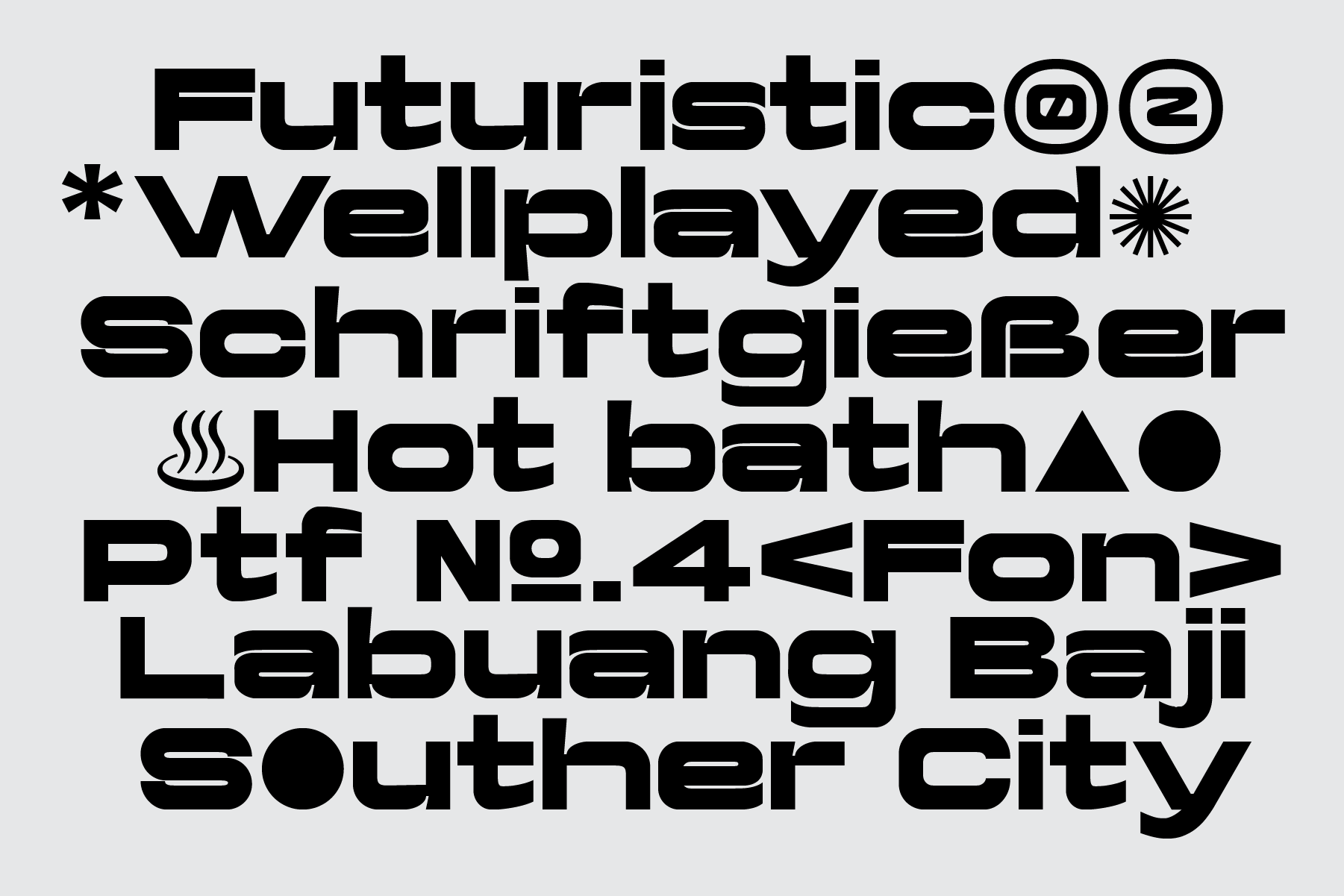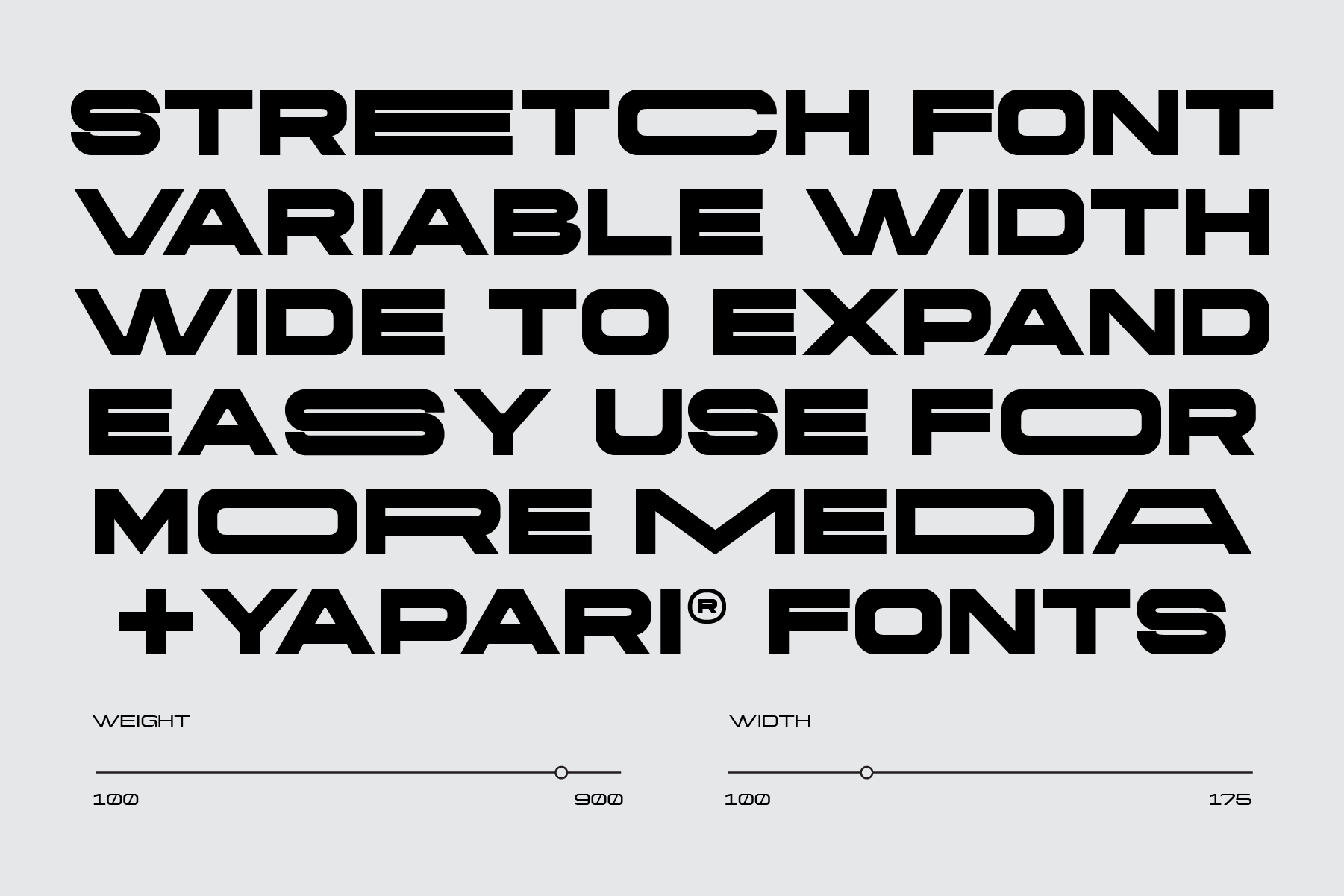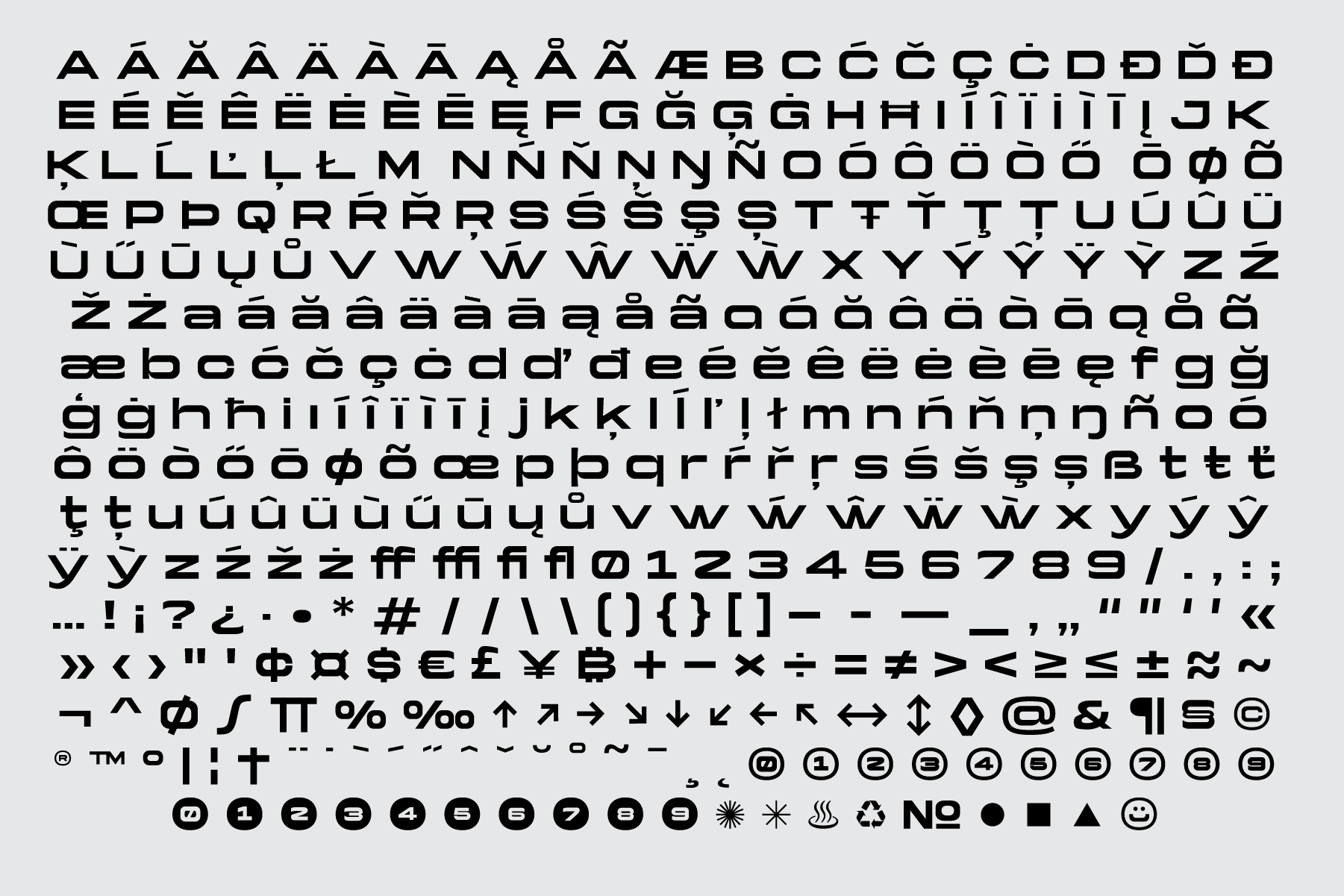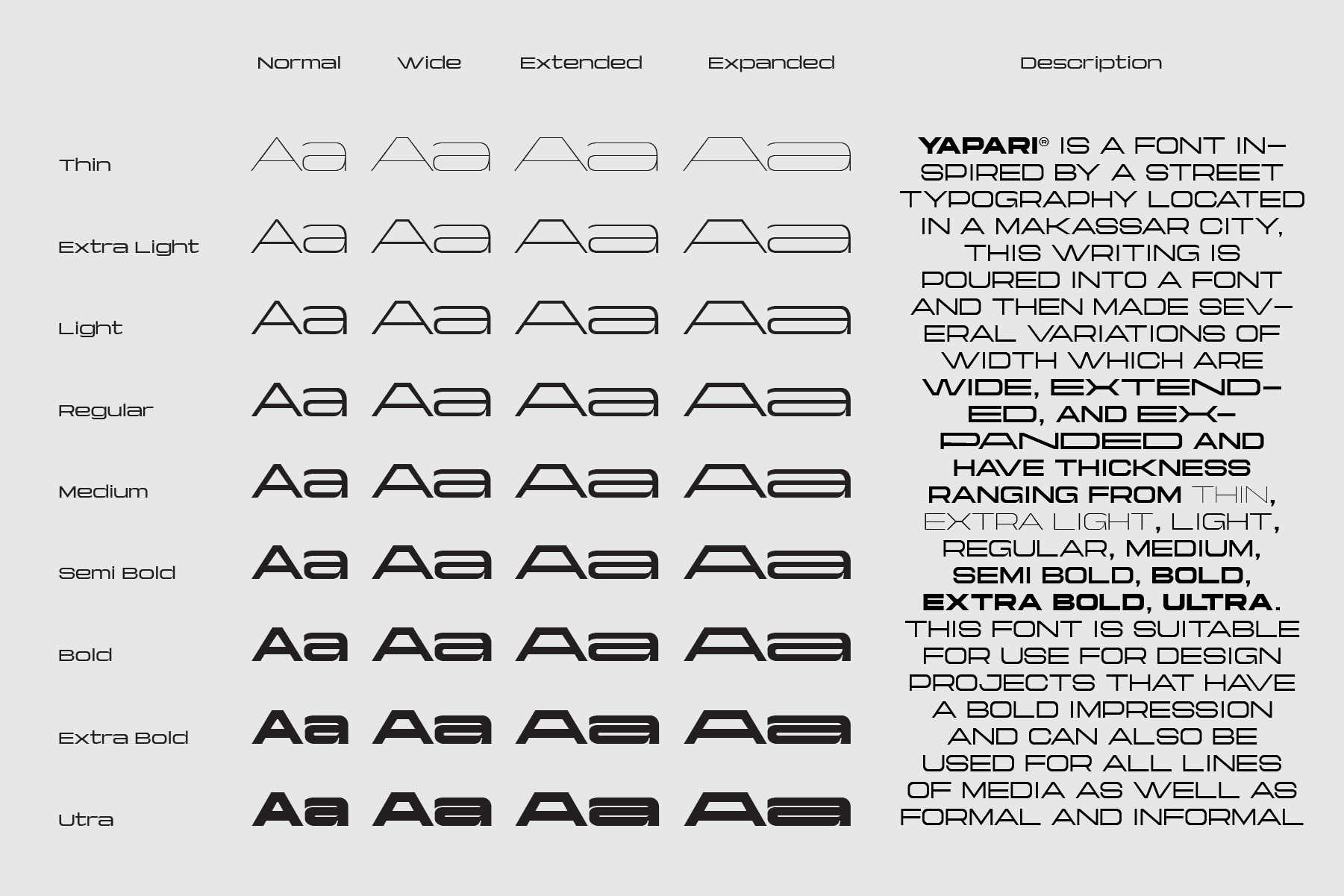
Yapari Sans Serif Font
It’s a stretch font inspired by a street typography located in a Makassar city, this writing is poured into a font and then made several variable font of 4 width + 9 weight